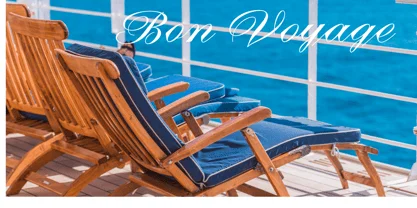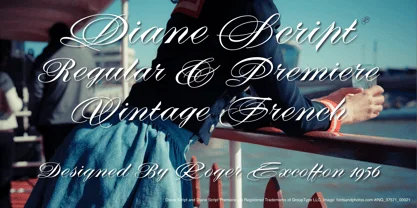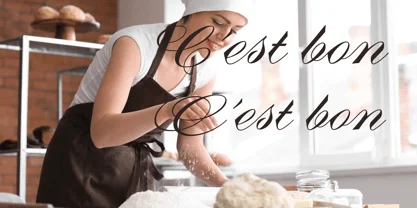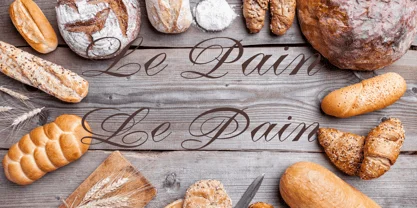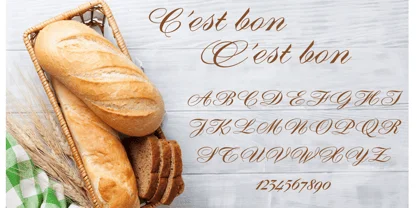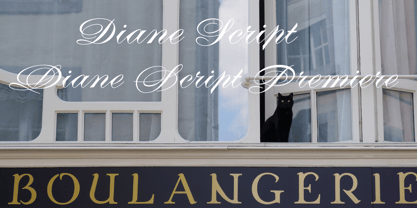
Diane Script Font
The Diane Script Font is perfect for elegant wedding invitations, feminine beauty branding, graceful fashion labels, sophisticated greeting cards, refined personal stationery, elegant blog headers, upscale boutique communications, feminine lifestyle brands, delicate product packaging, and charming social media graphics.
What makes the Diane Script Font so exciting is its perfect embodiment of feminine grace with elegant script sophistication that creates an irresistibly charming typeface ideal for projects celebrating refined femininity and timeless elegance. This beautiful typeface features flowing calligraphic letterforms, graceful character connections, and feminine design sensibilities that perfectly capture the essence of sophisticated beauty and elegant personal expression. The font's graceful personality and feminine charm make it an exceptional choice for beauty brands, lifestyle companies, and elegant projects seeking to communicate refinement, femininity, and authentic grace with captivating visual appeal.
The Diane Script Font family includes elegant variations and feminine alternates, featuring decorative swashes, graceful ligatures, and sophisticated styling options. Each variation maintains the signature elegant appeal while offering different levels of feminine expression and graceful sophistication, giving designers extensive creative possibilities for crafting refined communications and charming brand personalities that celebrate feminine elegance.
This exceptional Diane Script Font represents the perfect feminine typography solution for designers who want to infuse their projects with authentic elegance and graceful femininity that resonates with sophisticated audiences seeking refined beauty. Whether you're developing feminine brand identities, creating elegant wedding materials, or designing sophisticated lifestyle content, this versatile elegant font delivers enchanting results that connect with audiences seeking genuine grace and feminine sophistication.
The graceful design characteristics of Diane Script Font showcase masterful feminine script typography, with each letter carefully crafted to flow elegantly while maintaining sophisticated proportions and charming aesthetic appeal. The font's comprehensive character set includes uppercase and lowercase letters, numerals, elegant punctuation, and feminine symbols, ensuring complete functionality for diverse elegant projects and international feminine applications.
Perfectly suited for both digital and print elegant applications, this beautiful font maintains its graceful script character and feminine sophistication across various sizes and formats. From large-scale elegant signage to delicate personal stationery, Diane Script Font adapts beautifully to any refined design challenge while preserving its distinctive feminine personality and authentic elegant charm.